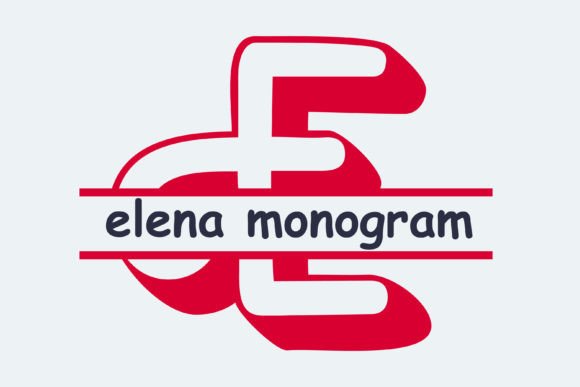
Elena Monogram Font: The Perfect Addition to Your Design Arsenal
Are you a designer or crafter looking for a font that can add a touch of elegance and whimsy to your creations? Look no further than the Elena Monogram Font. This simple and cute monogram font is sure to capture your heart with its authentic feel, making it an ideal choice for a wide range of design projects.
What is Elena Monogram Font?
Elena Monogram Font is a beautifully crafted monogram font that exudes a sense of simplicity and charm. Its unique design makes it perfect for creating stunning stationary art, eye-catching social media posts, and adorable greeting cards. Whether you’re a professional designer or a crafty DIY enthusiast, this font is sure to become a staple in your design arsenal.
Key Features of Elena Monogram Font
- Simple and Cute Design: Elena Monogram Font boasts a clean and adorable design that is sure to capture the hearts of designers and crafters alike.
- Authentic Feel: The font’s authentic feel makes it perfect for creating designs that require a personal touch.
- Monogram Style: The font’s monogram style makes it ideal for creating stunning initials and logos.
- Versatile: Elena Monogram Font can be used for a wide range of design projects, from stationary art to social media posts and greeting cards.
Uses of Elena Monogram Font
Elena Monogram Font is a versatile font that can be used for a variety of design projects. Here are some ideas to get you started:
- Stationary Art: Create beautiful stationary art, such as letterheads, journals, and planners, using Elena Monogram Font.
- Social Media Posts: Add a touch of elegance and whimsy to your social media posts with Elena Monogram Font.
- Greeting Cards: Design adorable greeting cards for special occasions, such as birthdays, weddings, and holidays.
- Logos and Branding: Use Elena Monogram Font to create stunning logos and branding materials for your business or personal projects.
Why Choose Elena Monogram Font?
With so many fonts available, why choose Elena Monogram Font? Here are a few reasons why this font stands out from the rest:
- Unique Design: Elena Monogram Font boasts a unique design that is sure to set your designs apart from the rest.
Tips for Using Elena Monogram Font
Here are a few tips for using Elena Monogram Font in your designs:
- Experiment with Colors: Elena Monogram Font looks great in a variety of colors, so don’t be afraid to experiment and find the perfect color for your design.
- Mix and Match: Mix and match Elena Monogram Font with other fonts to create a unique and eye-catching design.
- Pay Attention to Size: Make sure to adjust the size of the font according to your design needs.
Elena Monogram Font is a simple and cute monogram font that is sure to capture your heart with its authentic feel. With its unique design, versatility, and ease of use, this font is perfect for designers and crafters looking to add a touch of elegance and whimsy to their creations. Whether you’re creating stationary art, social media posts, or greeting cards, Elena Monogram Font is the perfect addition to your design arsenal.